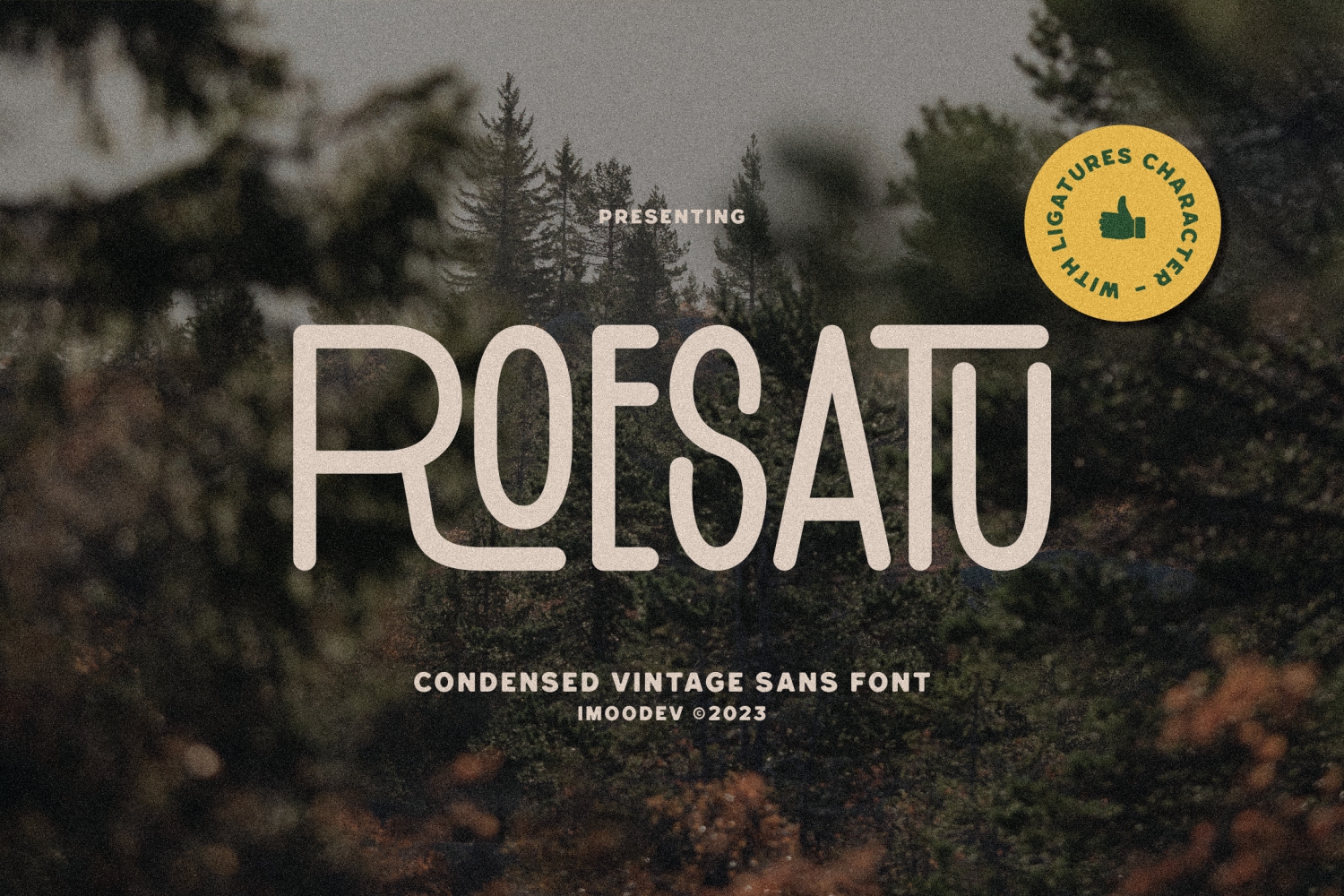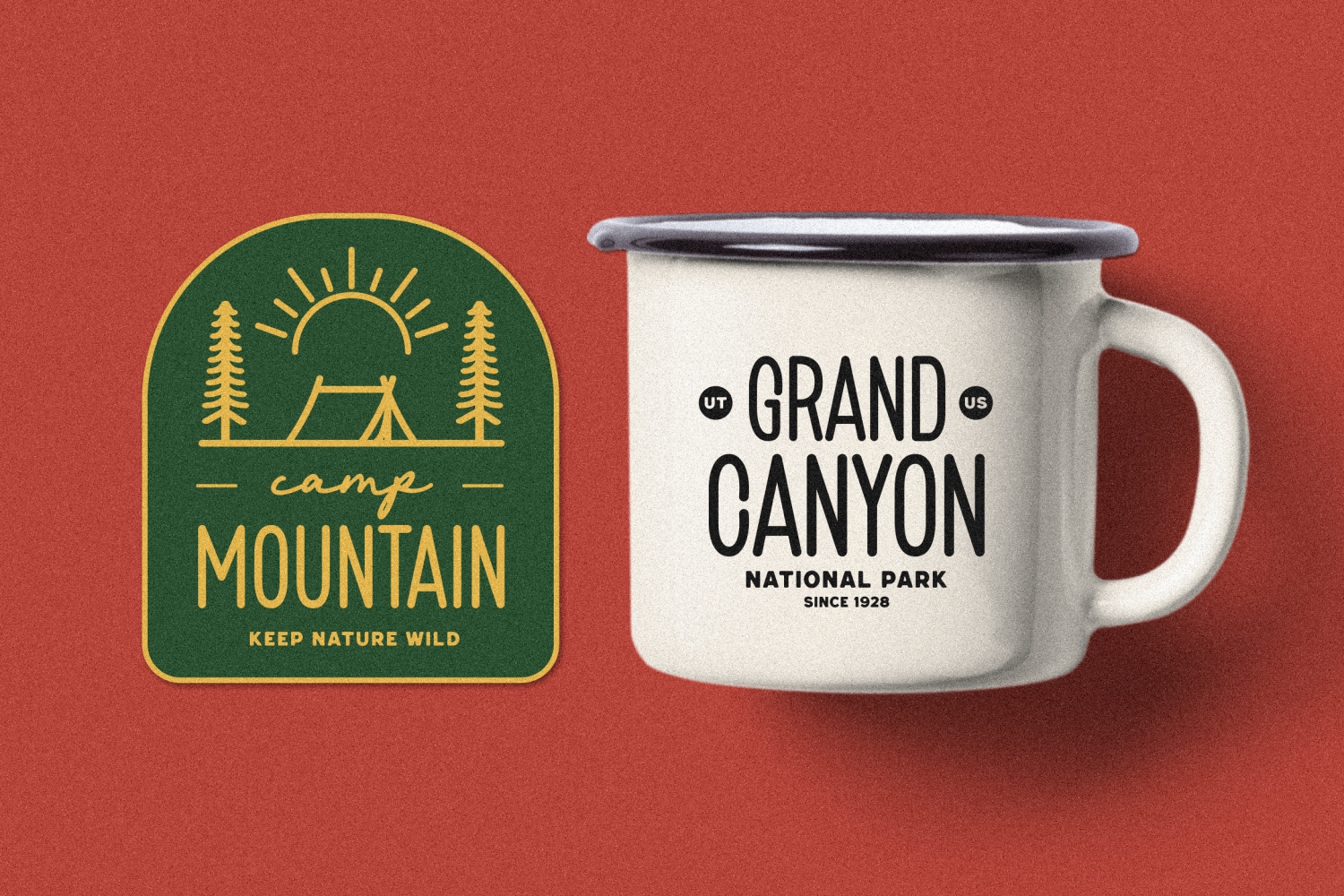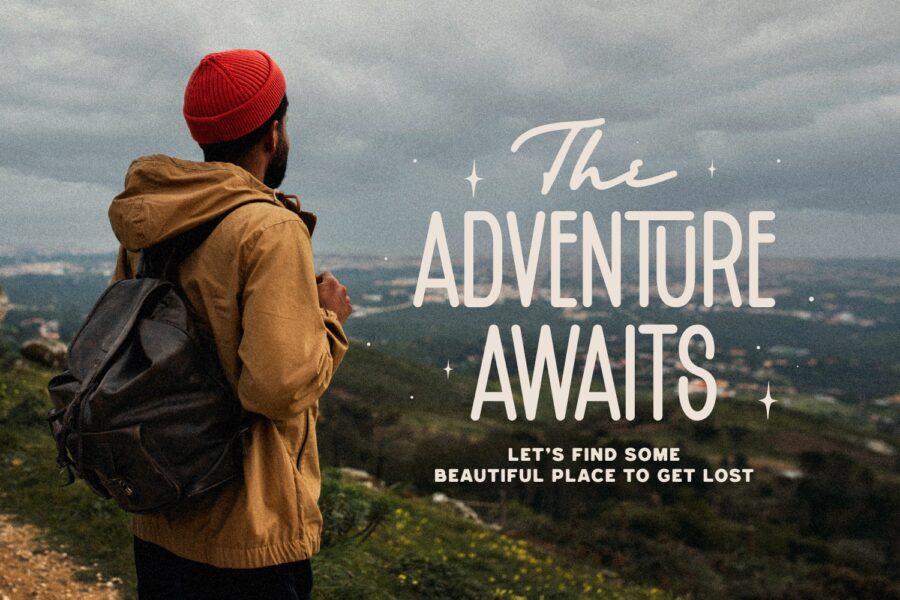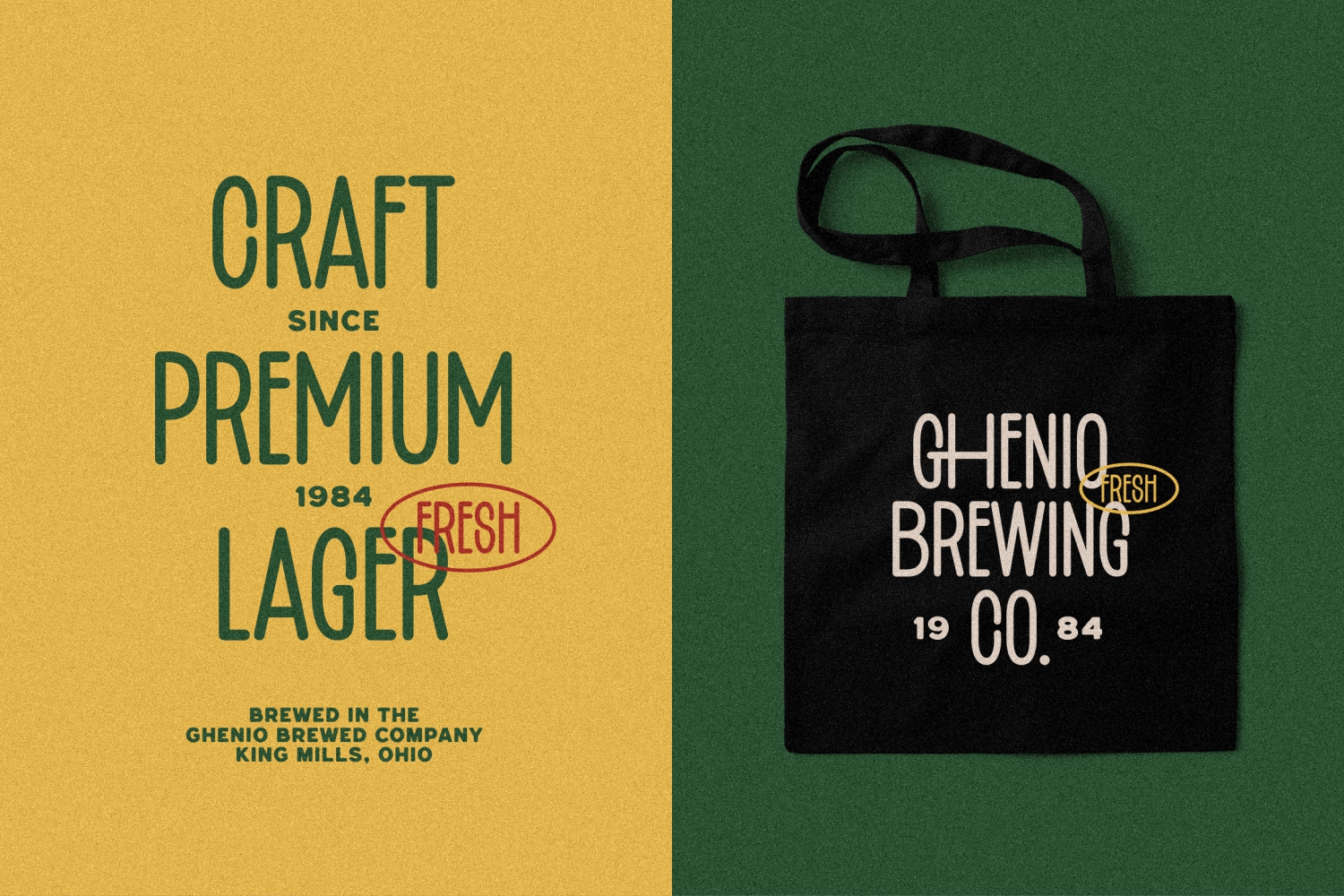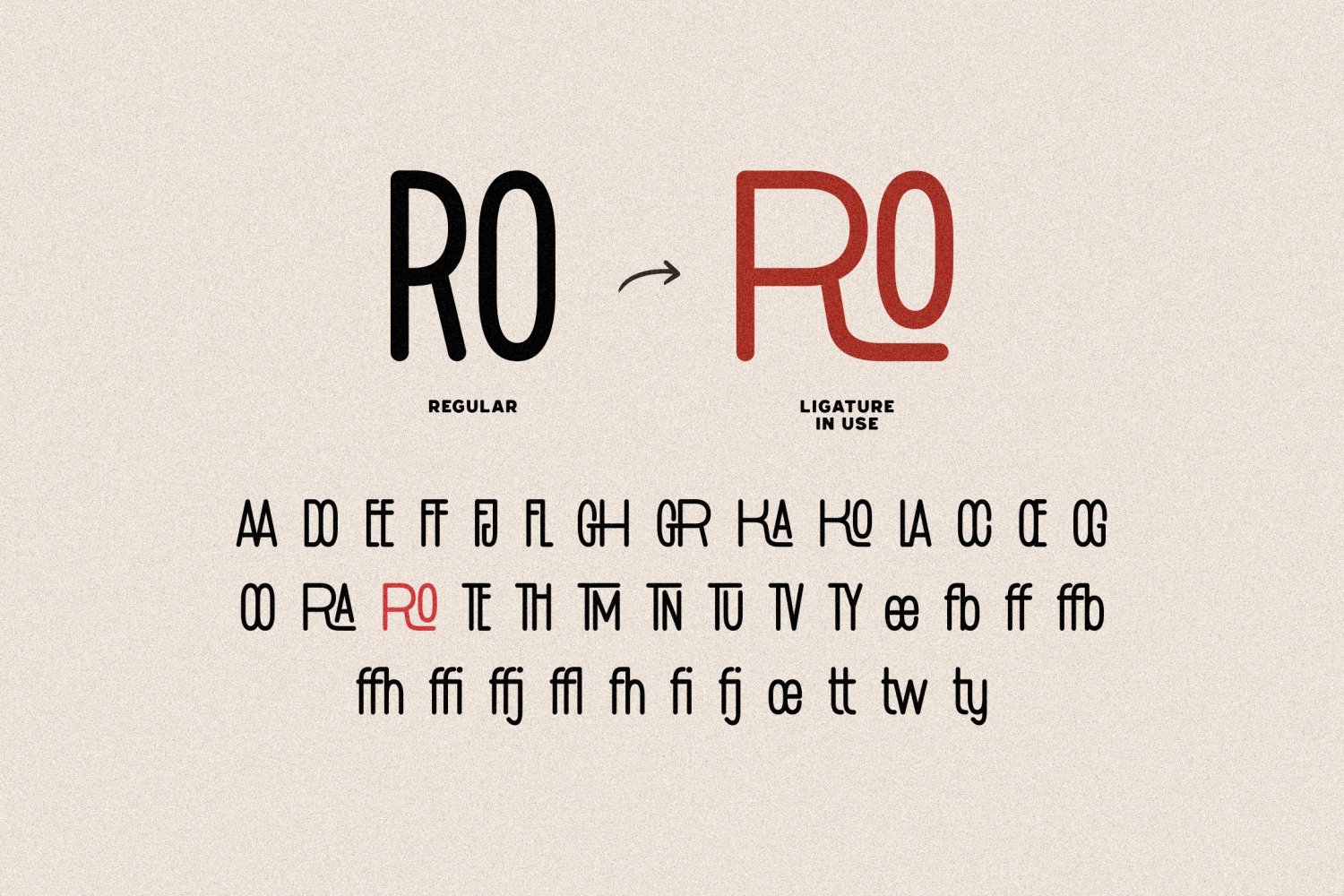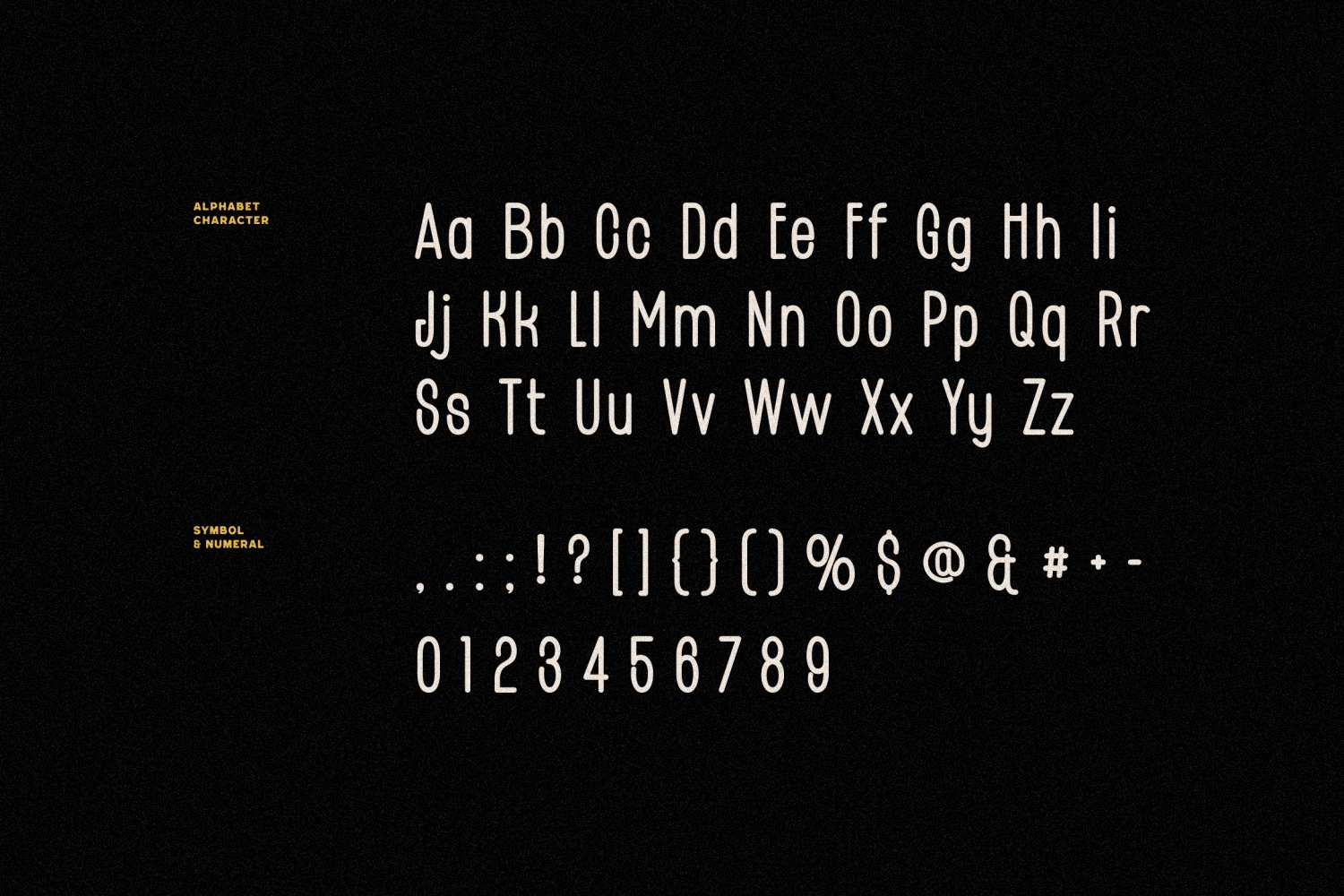
Roesatu is a condensed vintage sans font that combines retro charm with modern practicality. Its narrow letterforms and clean curves give it a timeless personality, making it a perfect choice for outdoor branding, vintage packaging, editorial titles, and signage. With a natural handmade touch, Roesatu captures the spirit of adventure and nostalgia, ideal for projects inspired by nature, travel, and retro aesthetics.
Equipped with uppercase, lowercase, numerals, punctuation, and a rich set of ligatures, Roesatu provides designers with creative flexibility. Its versatility allows smooth adaptation to both minimalist and decorative designs, from coffee shop branding and craft beer labels to posters and apparel graphics. Whether for modern use or retro-inspired creations, this font delivers an authentic, warm, and adventurous visual impact.